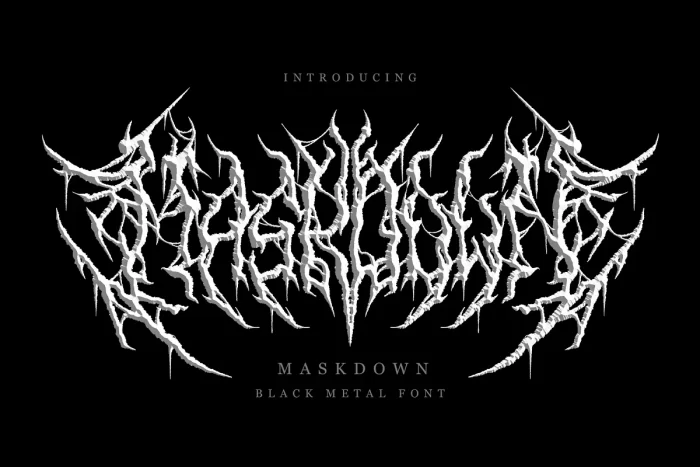
Maskdown Font
Maskdown is a carefully crafted font, which features a very heavy black metal feel. Maskdown suitable for metal band logos, merchandise, clothing, apparel, or anything that needs a black metal feel. This font has a complex shape, which is a bit heavy on low spec devices when using this font.
Maskdown Black Metal Font